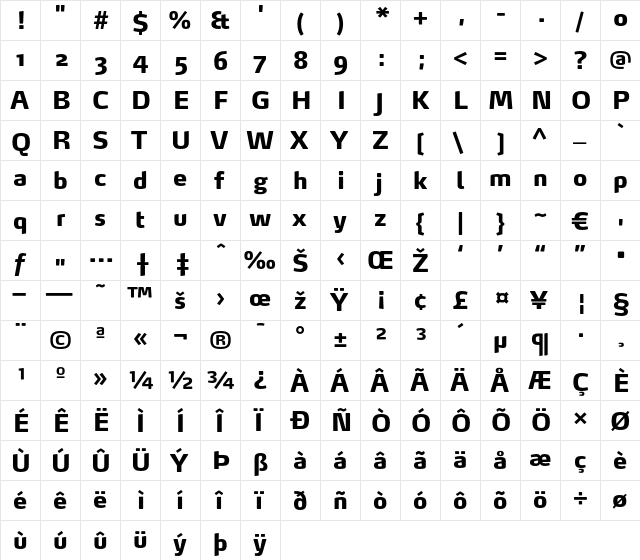
Max-ExtraBold Regular
Design Context for Max-ExtraBold Typeface
Max-ExtraBold is a composed and adaptable typeface that performs quietly and consistently across a wide range of design contexts. The heavy weight commands attention and anchors typographic hierarchies.